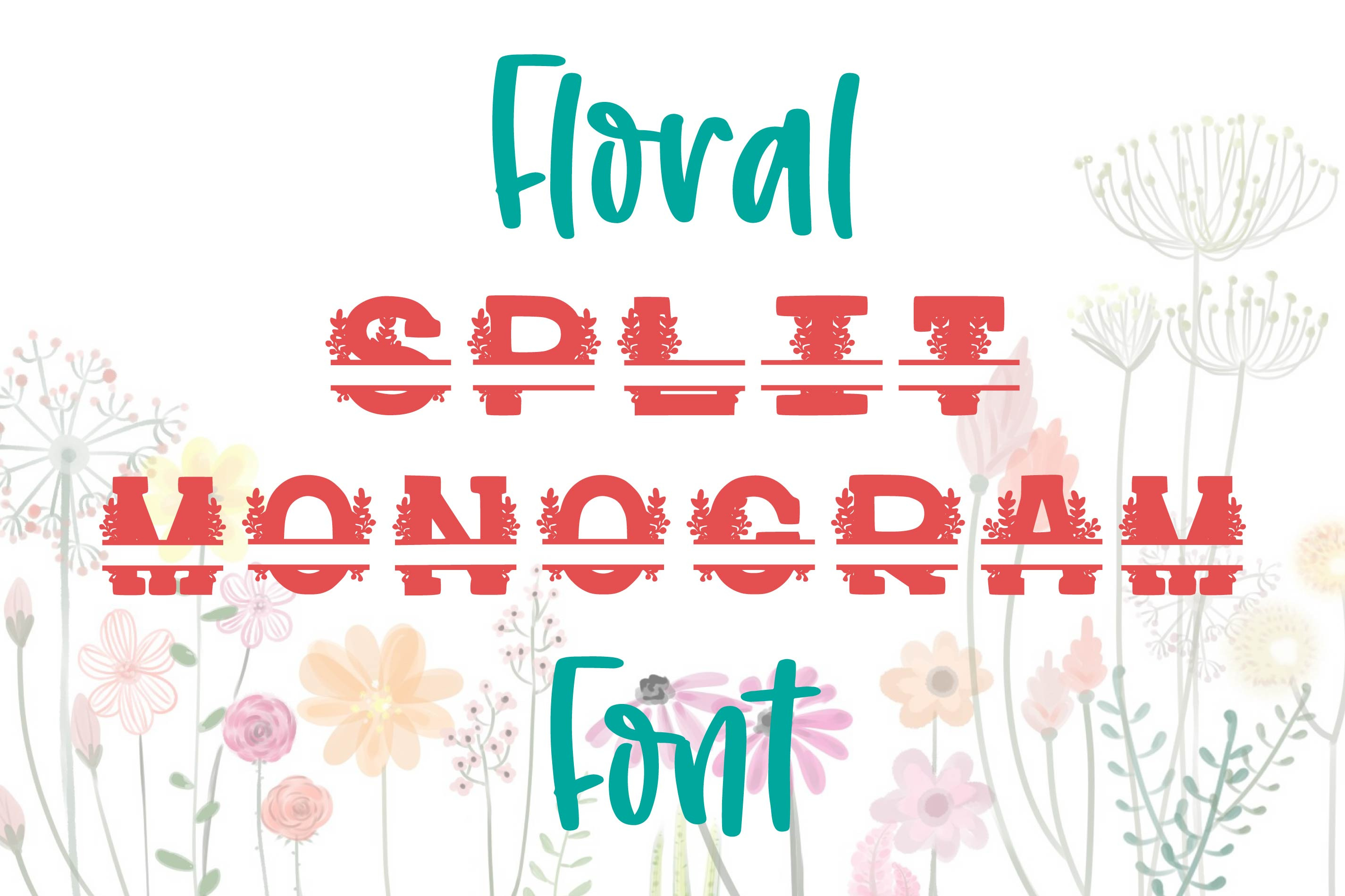
Floral Split Monogram Flower Font
This gorgeous Floral Split Monogram Font is a slab serif font with a split monogram for each letter to place your own text or name. Each letter has a beautiful floral arrangement implemented. This monogram font includes letters A-Z. This font comes in TTF, OTF, and WOFF format. Perfect for customized gifts, wedding decoration, and wood signs!